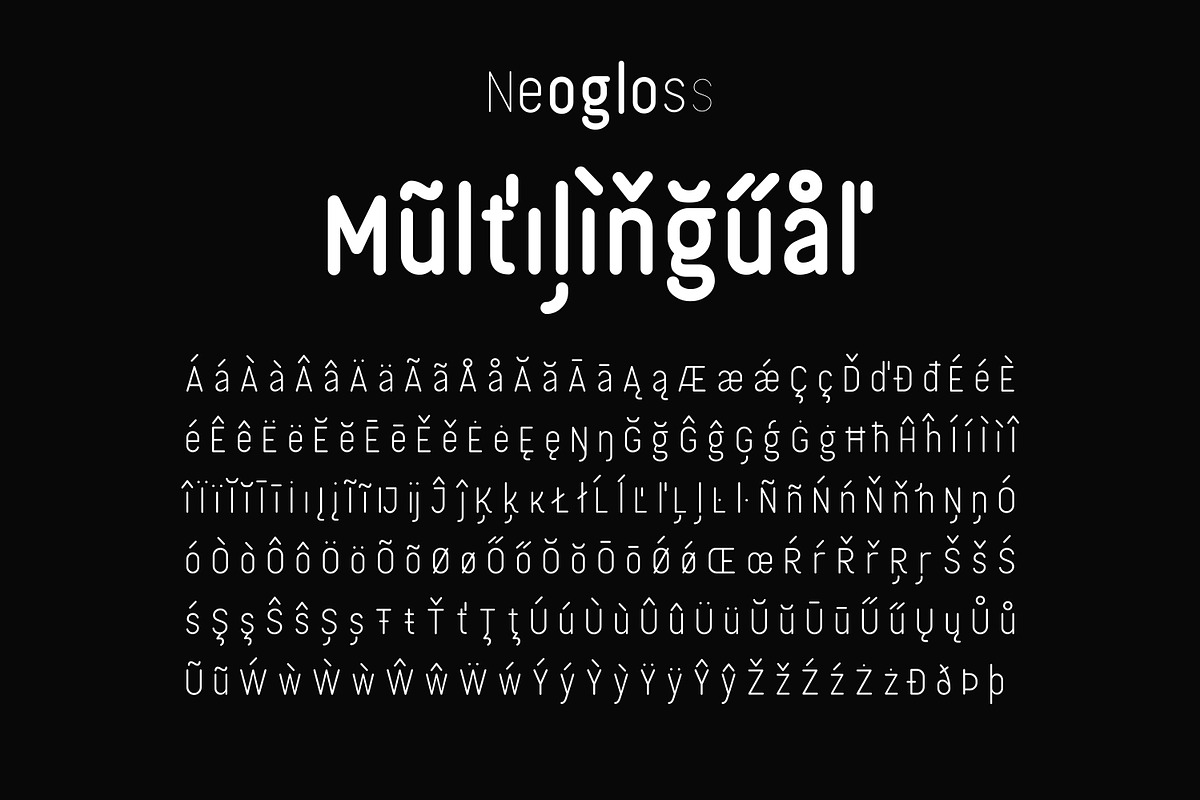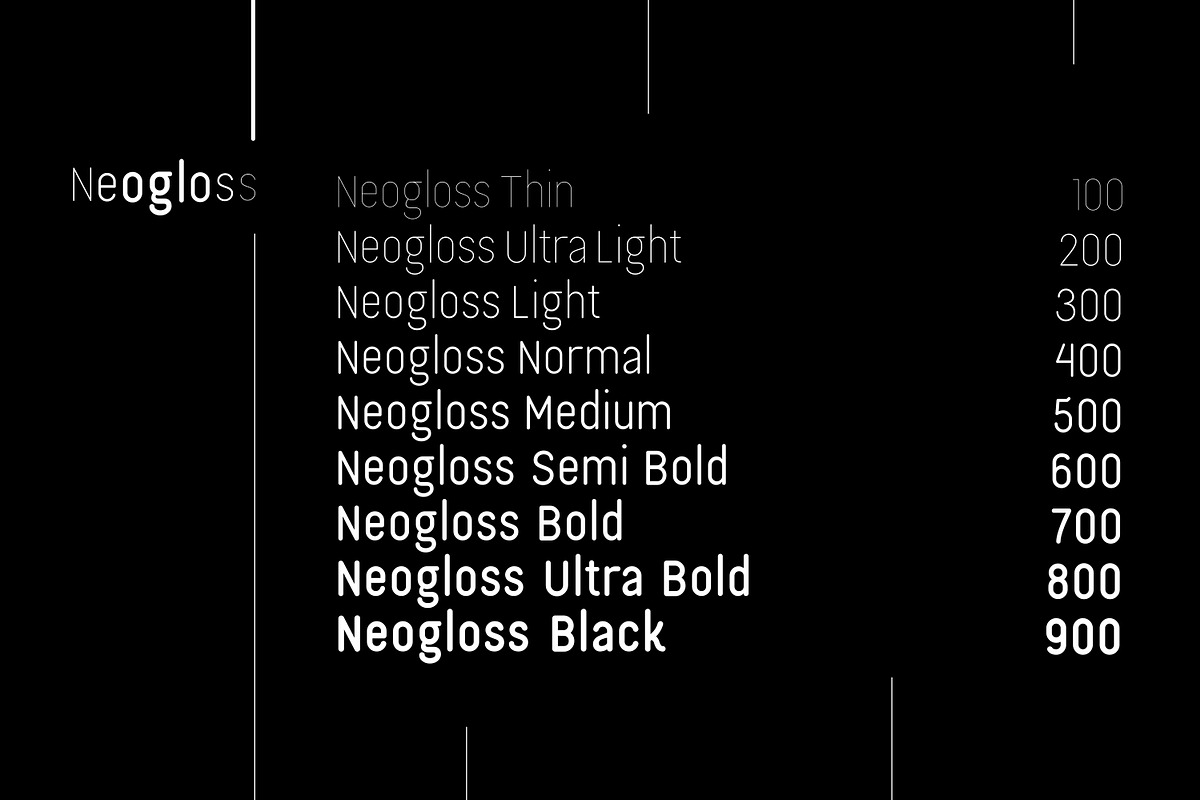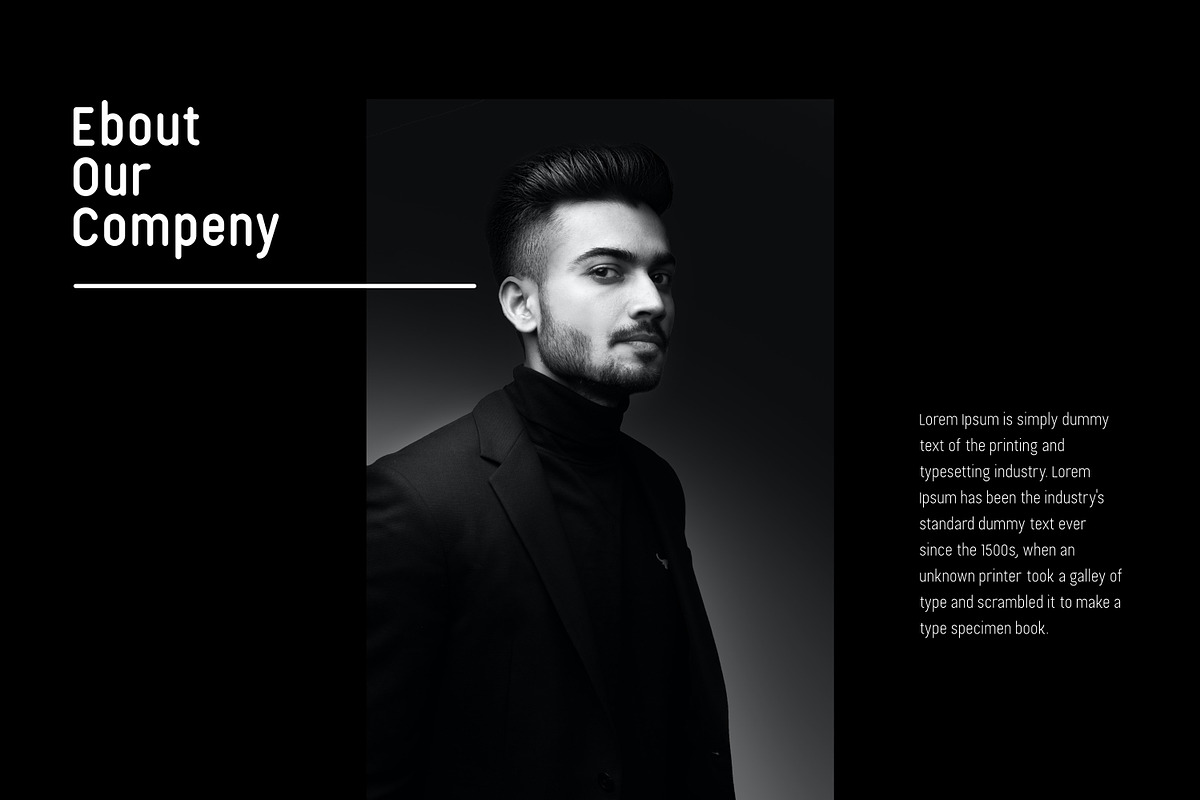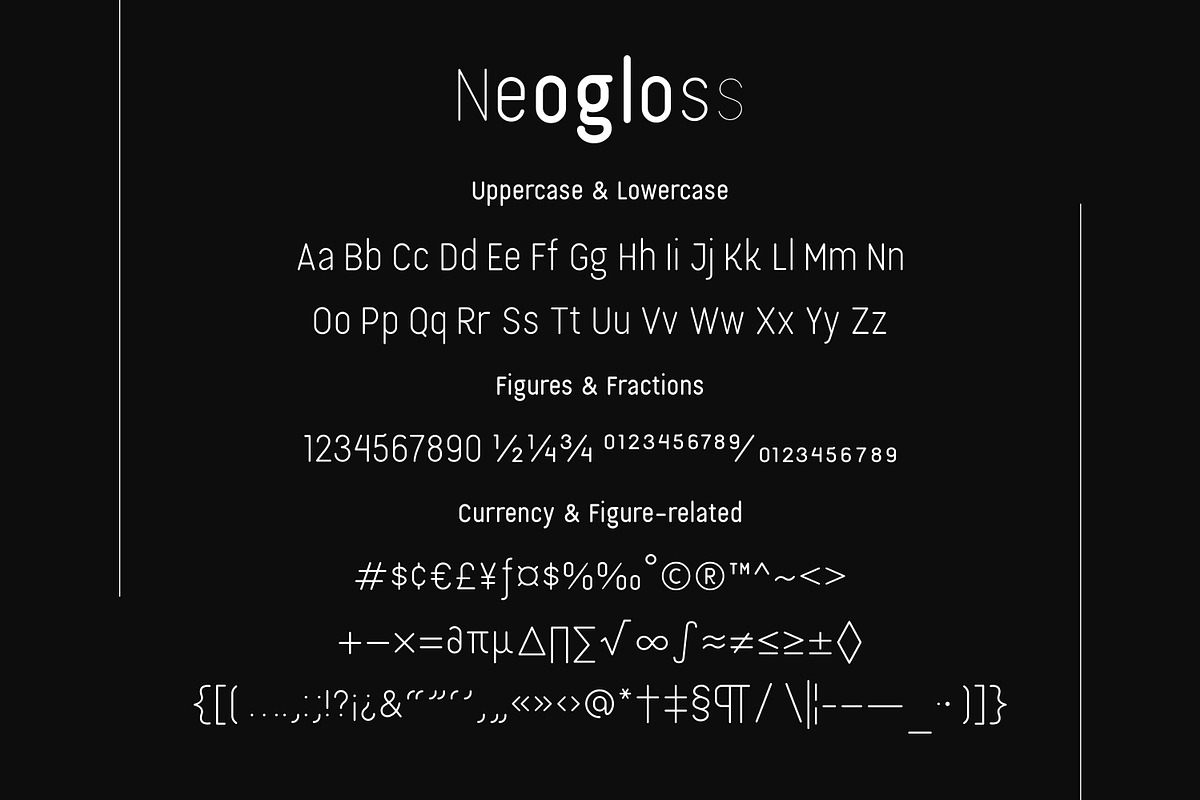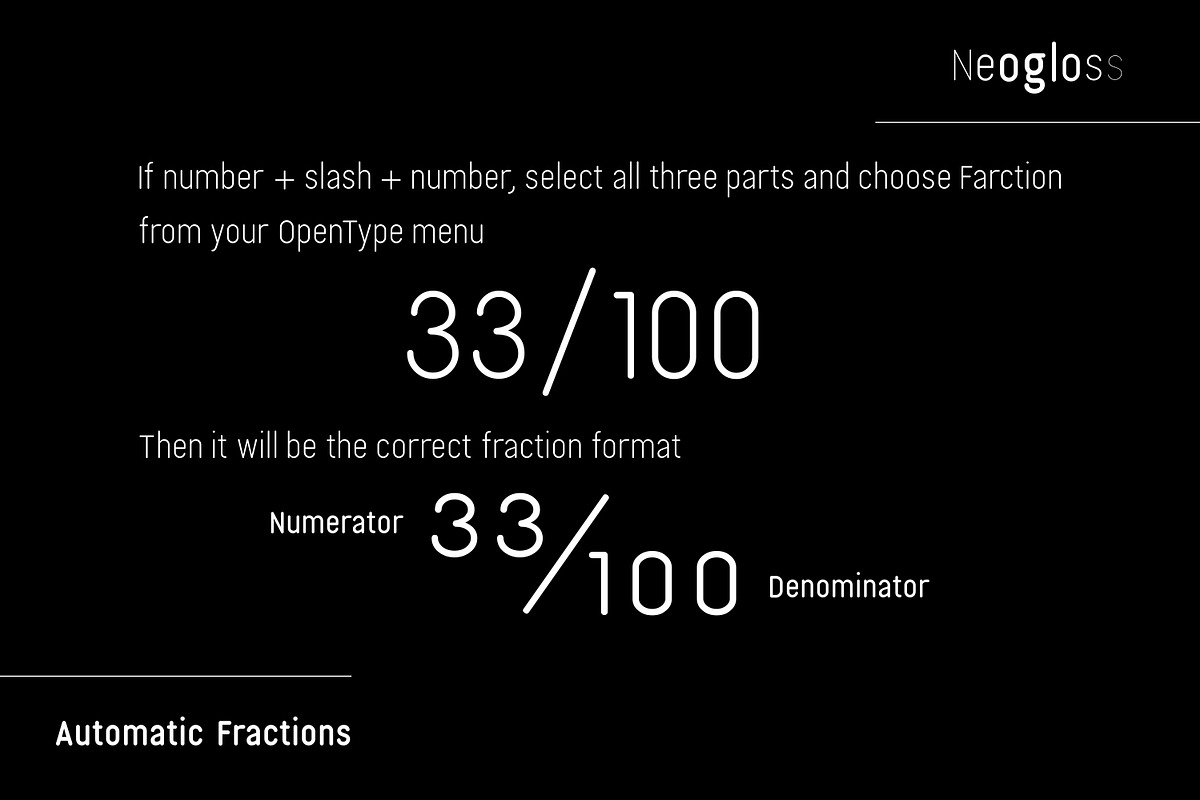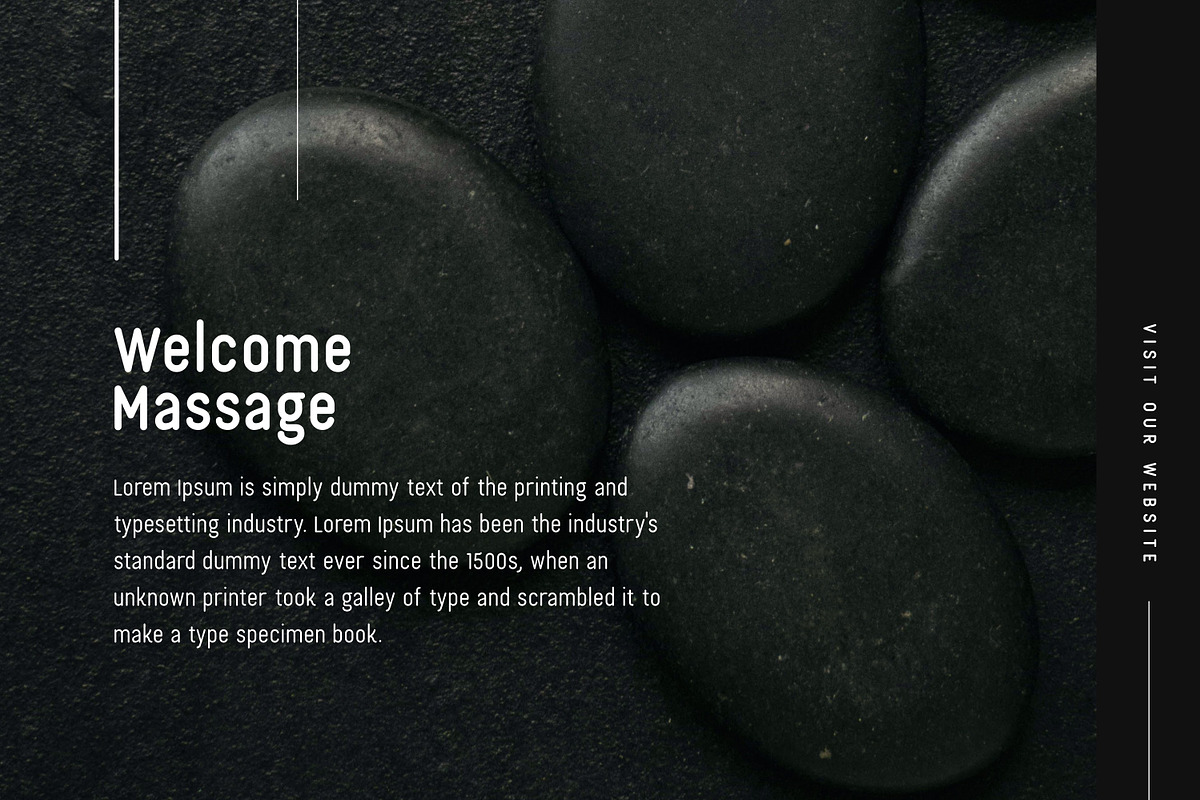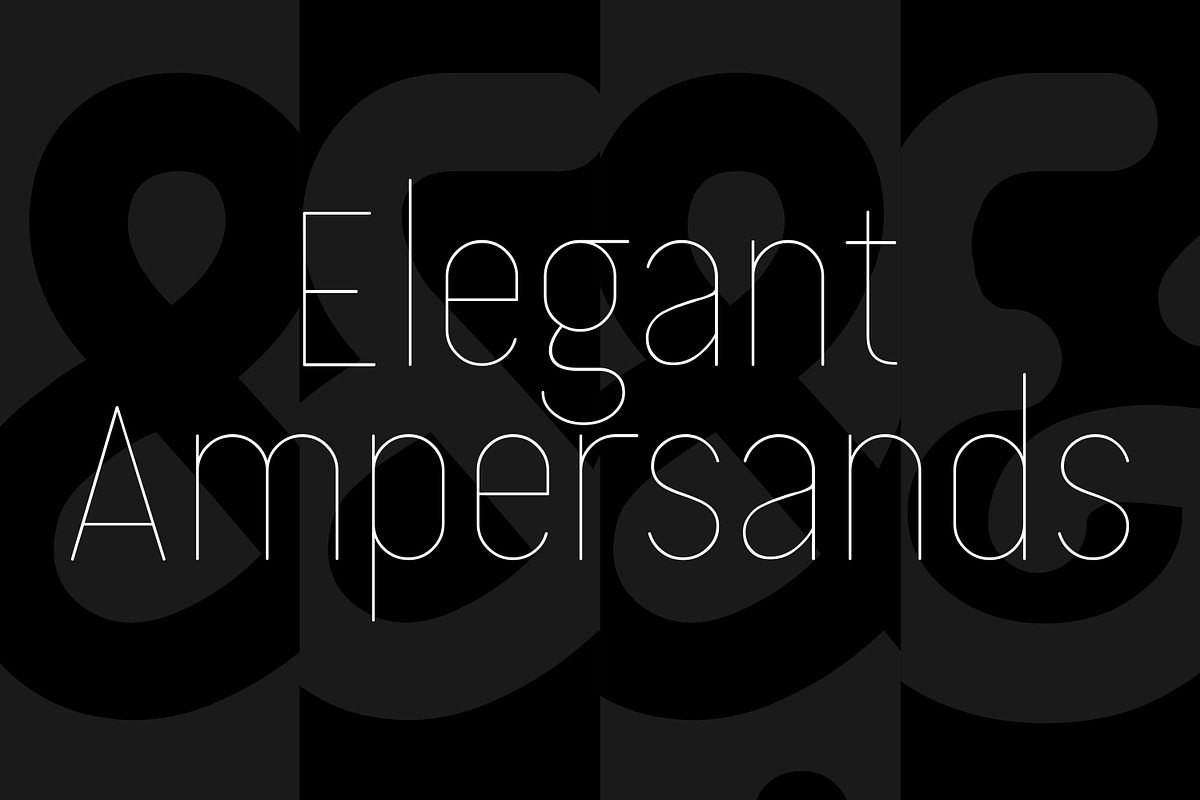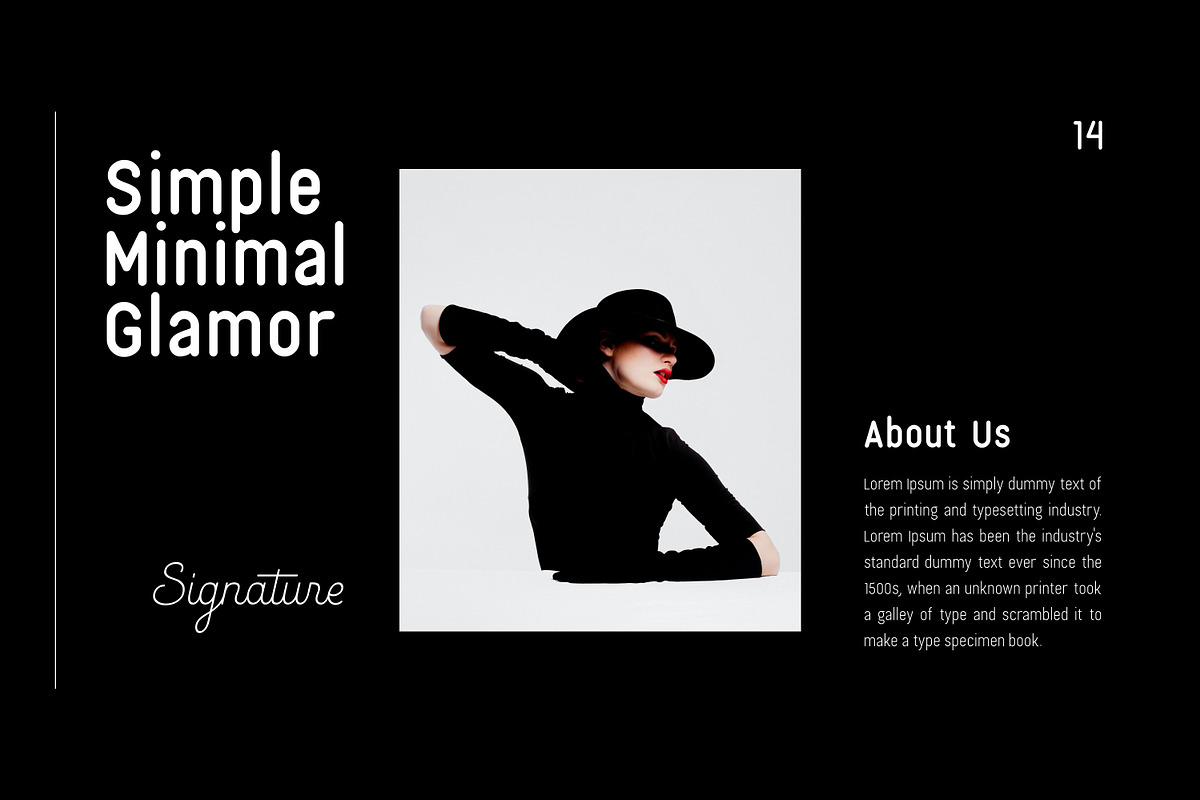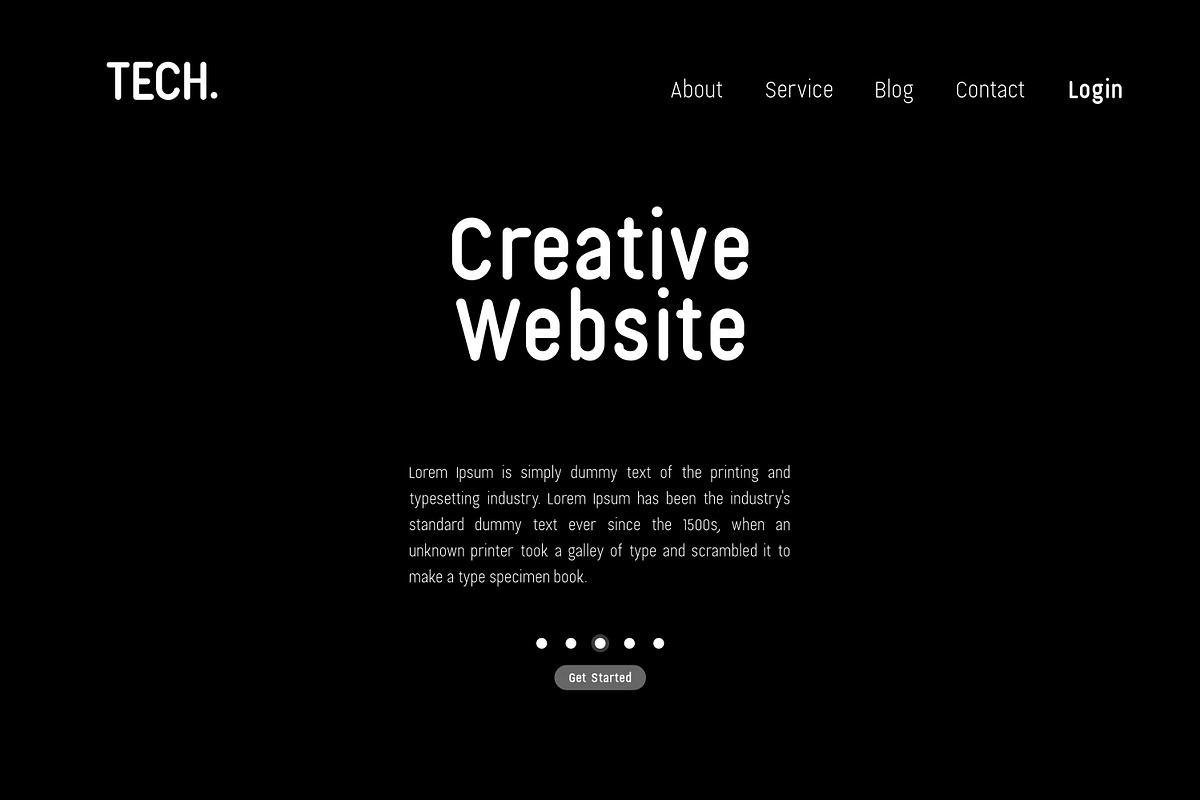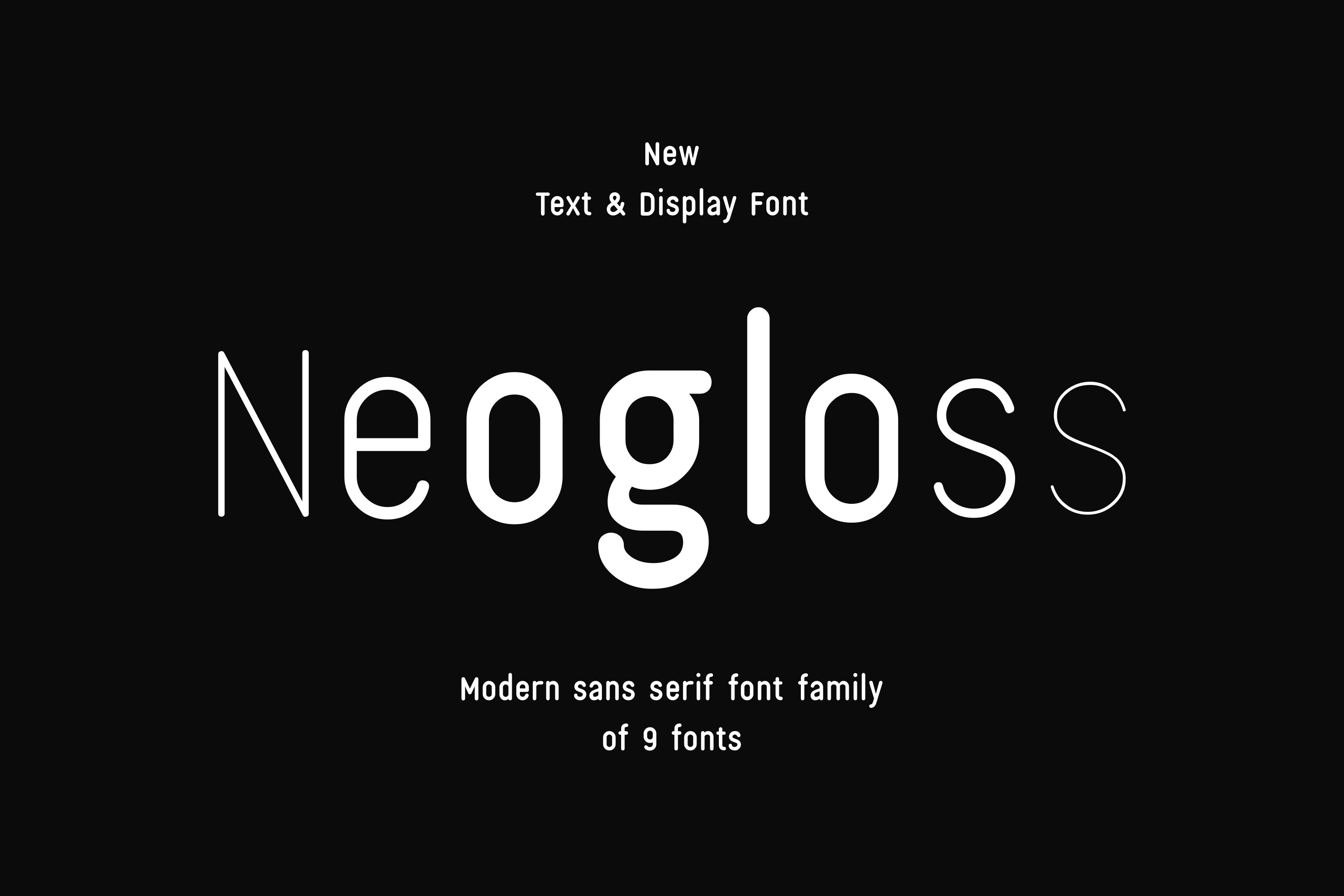
Neogloss- Modern Font Family
Neogloss is a rounded sans serif with lots of personalities. A great choice for friendly web designs, kids’ products, and natural beauty brands, Neogloss provides a good organic feel to any project. This font is PUA encoded which means you can access all glyphs and swashes effortlessly!